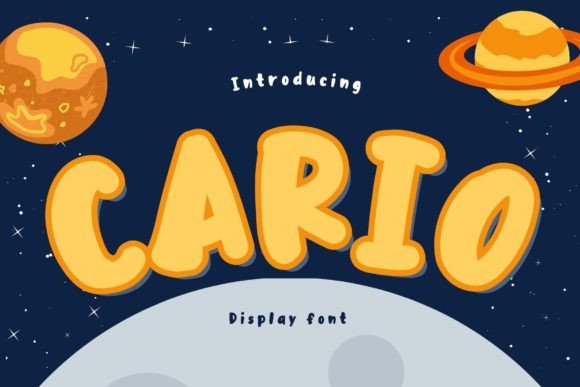
The Cario Font: A Playful and Authentic Display Font for Your Creative Projects
I’ll never forget the time I was working on a whimsical craft project for a client, pouring my heart and soul into the design, but struggling to find the perfect font to match the playful vibe. The client wanted something that embodied both fun and authenticity, and I was on a mission to deliver. That’s when I stumbled upon the Cario font, and it instantly became the perfect fit. In this article, I’ll share my experience with this adorable display font, its features, and how to make the most of it in your designs.
An Honest Review of Cario Font
What I Love About Cario Font
- ✨ Playful and authentic vibe that’s perfect for creative projects
- ✅ Easy to read, even in larger or smaller sizes
- 💕 Wide range of uses, from blog posts and logos to invitations and decorations
- 🎉 Highly versatile and works well with various design styles
While Cario font is an excellent choice for many projects, there are a few things to keep in mind:
- ⚠️ May not be the best choice for very formal or professional projects, as it can come across as too playful
- 🤔 Limited availability of certain characters or glyphs, which may require some creative workarounds
The Backstory of Cario Font
Cario font was designed with the intention of creating a playful and authentic display font that would bring joy to creative projects. The designer, inspired by the whimsy of childhood and the beauty of handwritten letters, crafted Cario font to be a versatile and fun addition to any design.
Q: What is Cario font best used for?
A: Cario font is perfect for creative projects, such as blog posts, logos, branding, ads, invitations, greeting cards, planners, photo albums, decorations, and more.
Q: Is Cario font easy to read?
A: Yes, Cario font is designed to be easy to read, even in larger or smaller sizes.